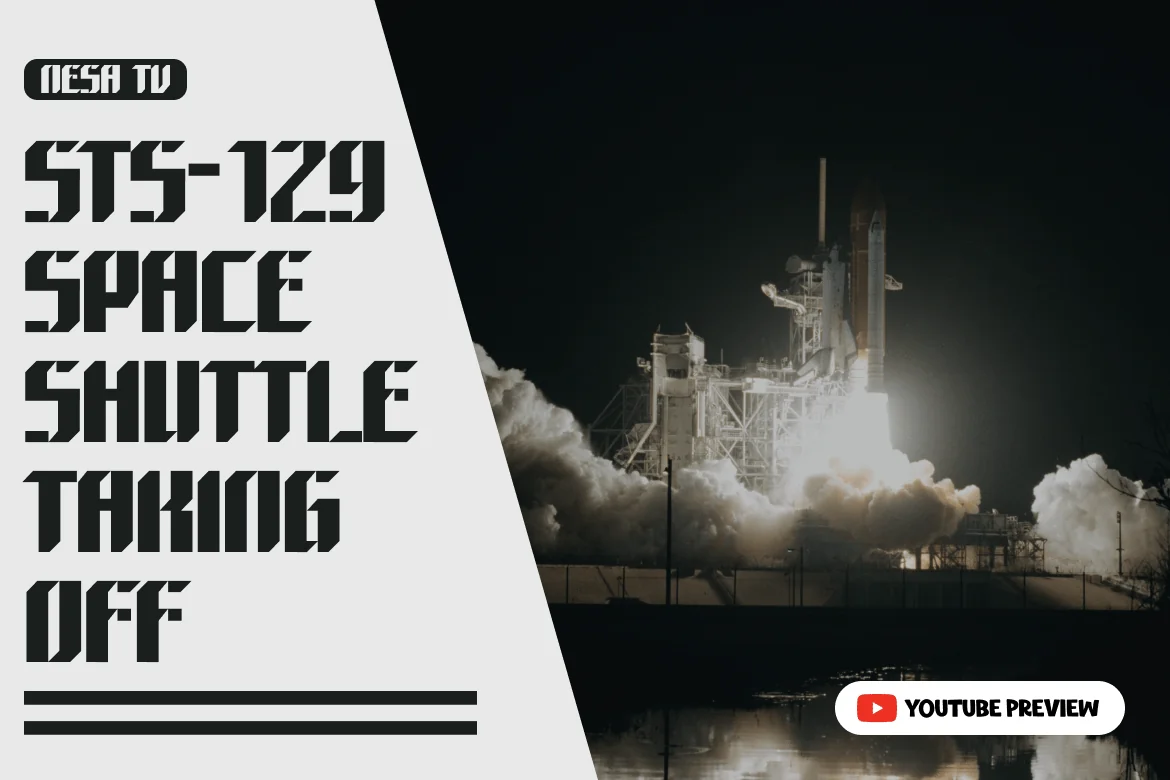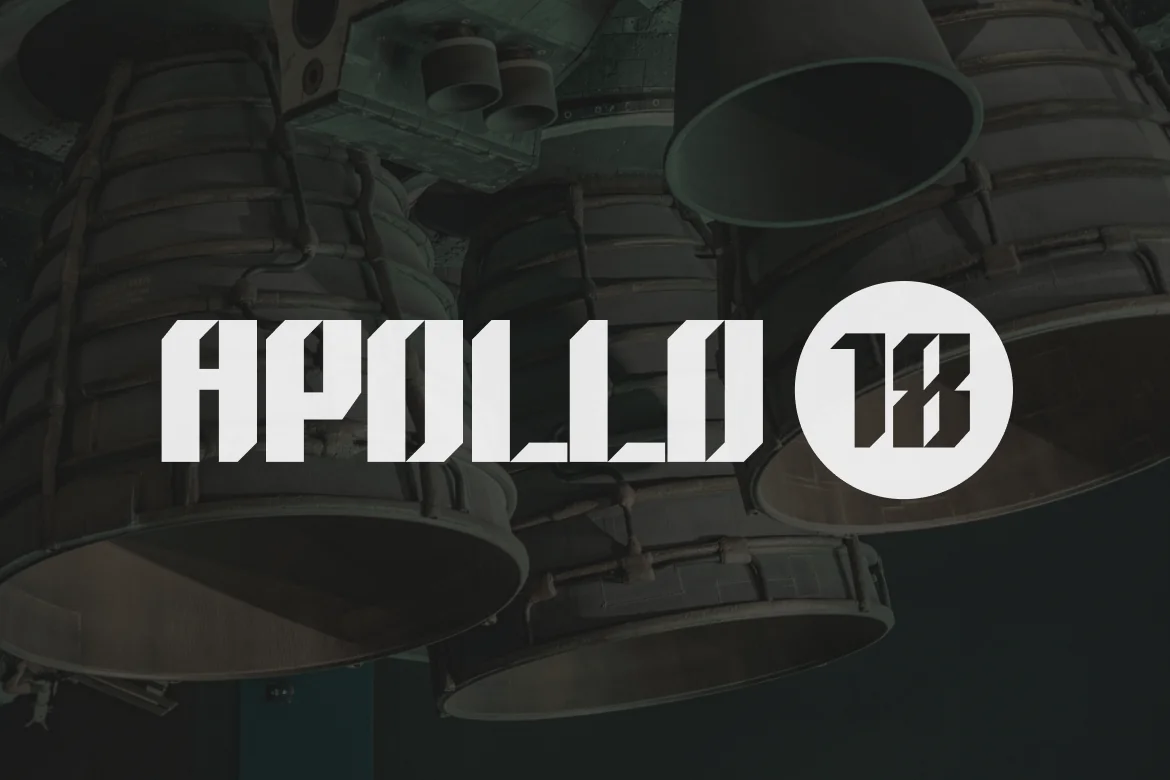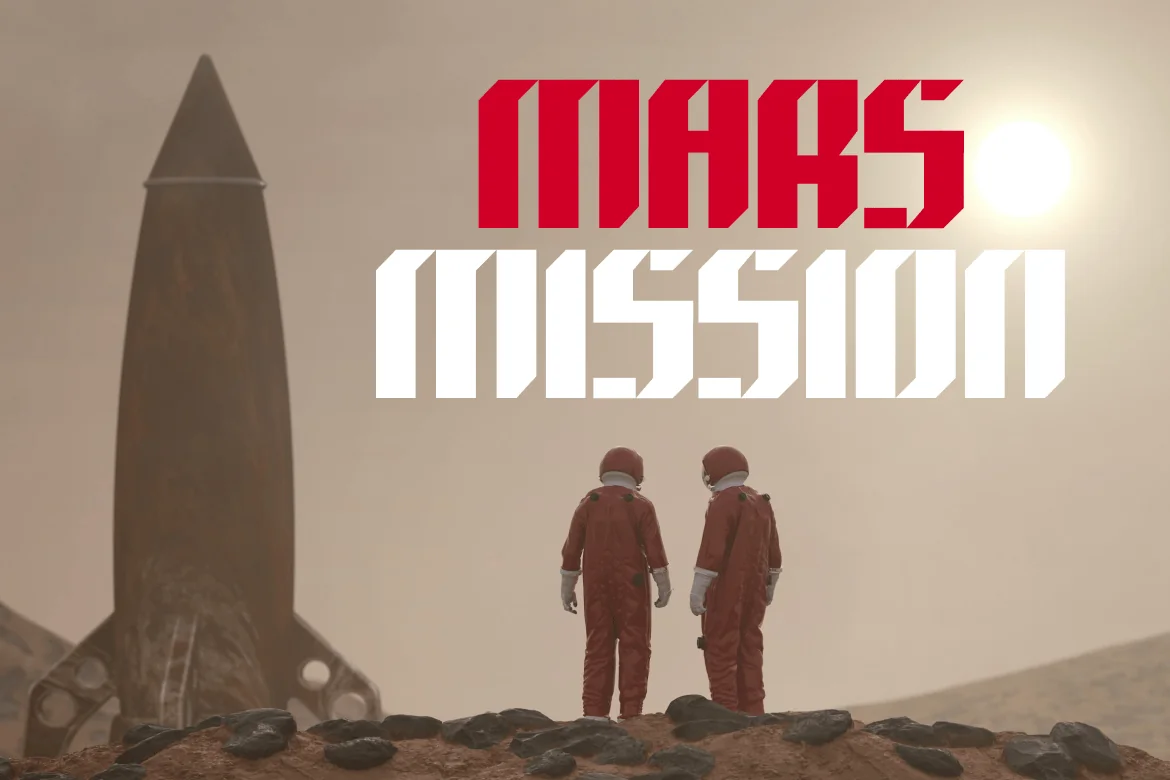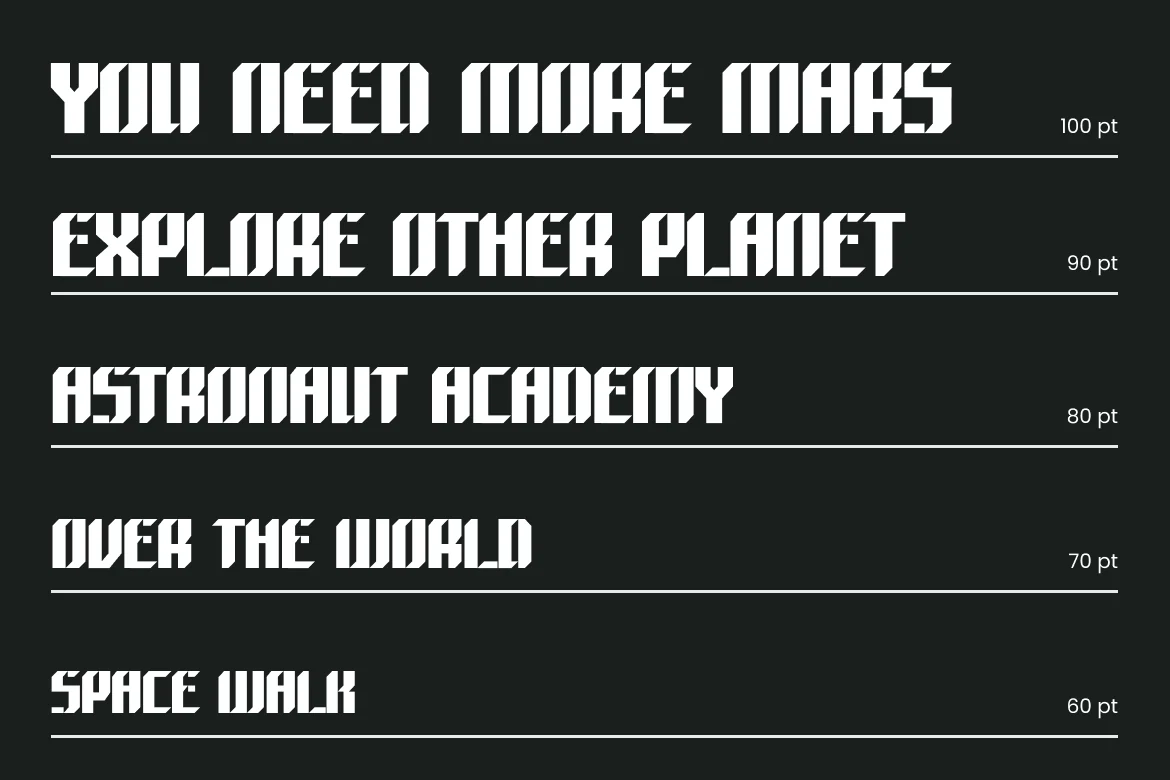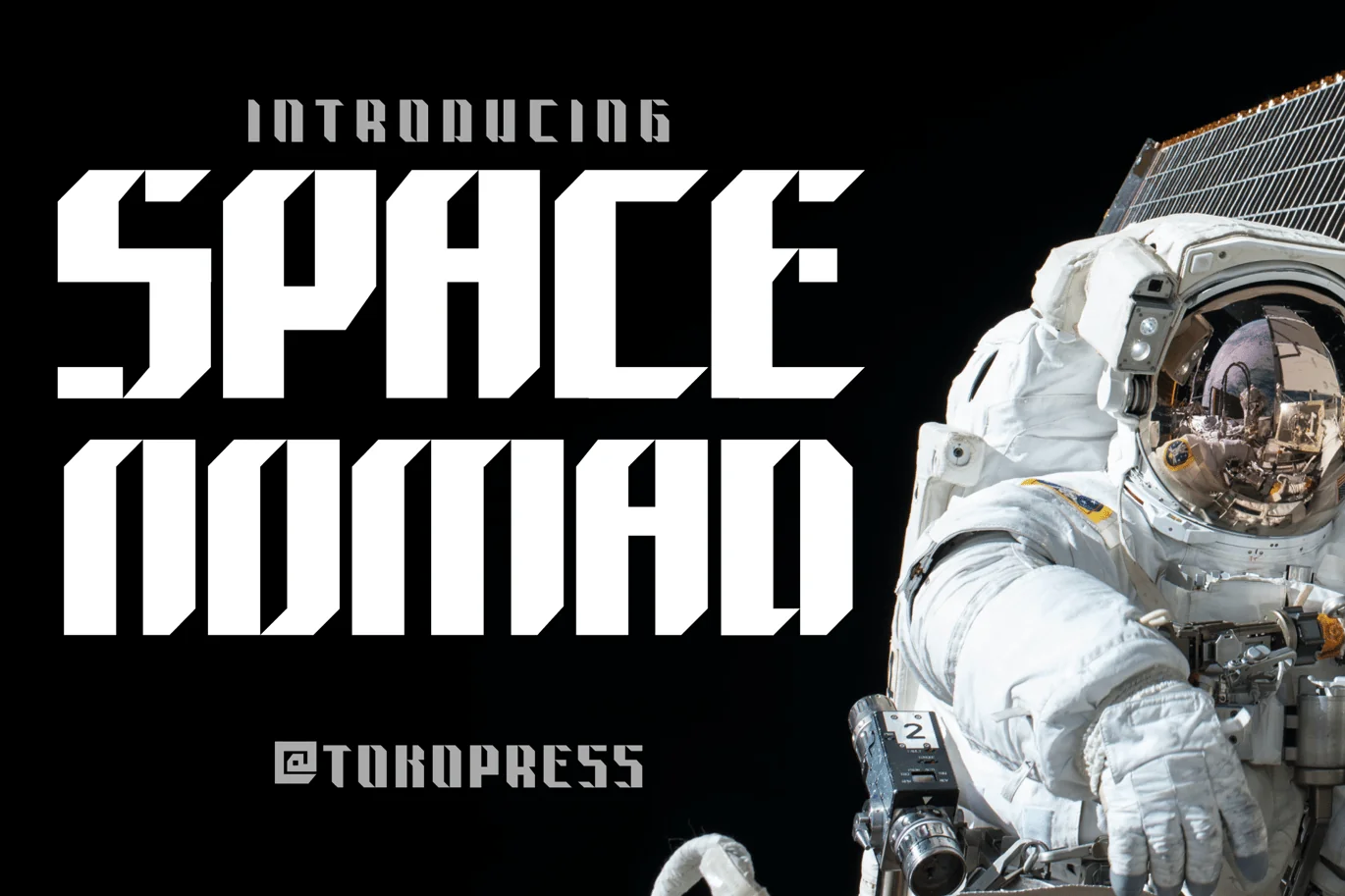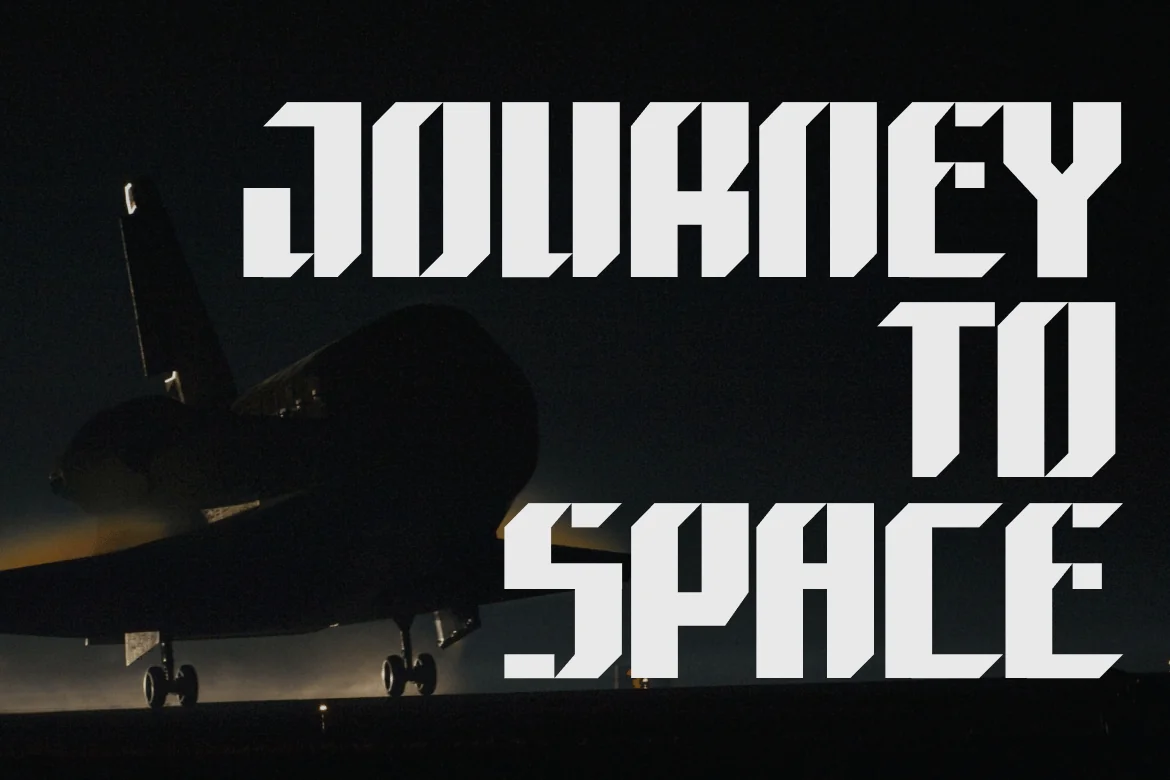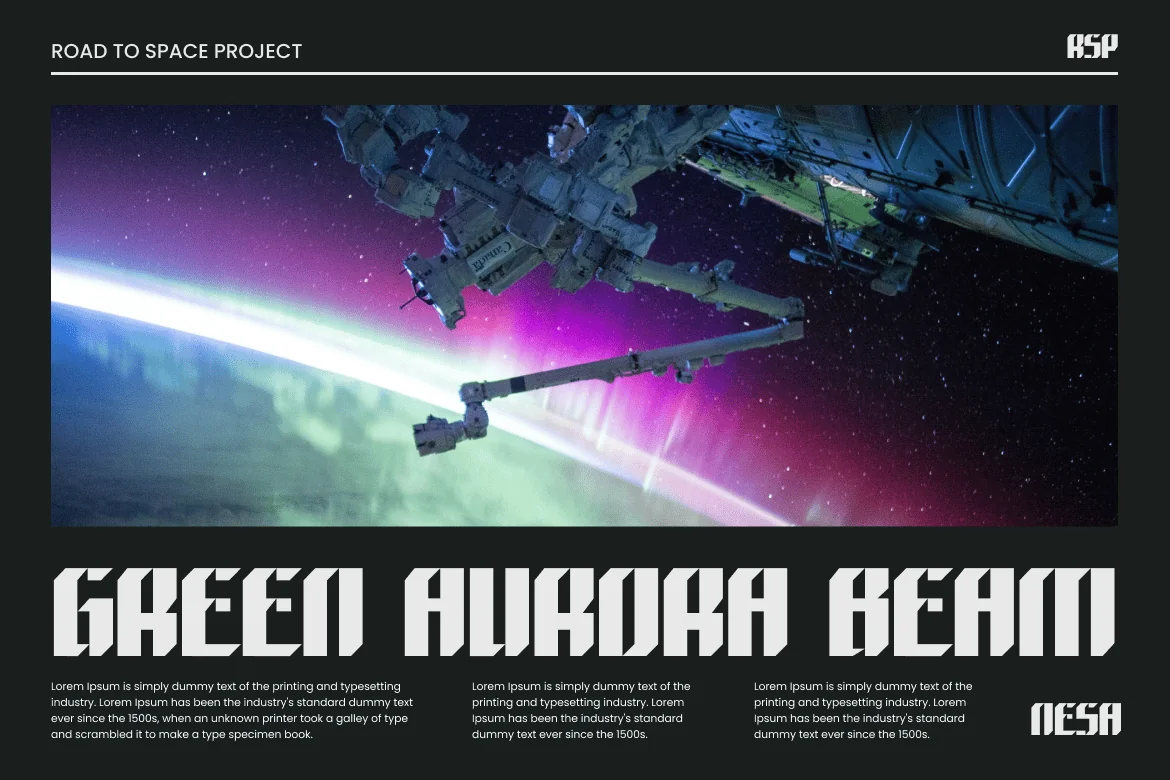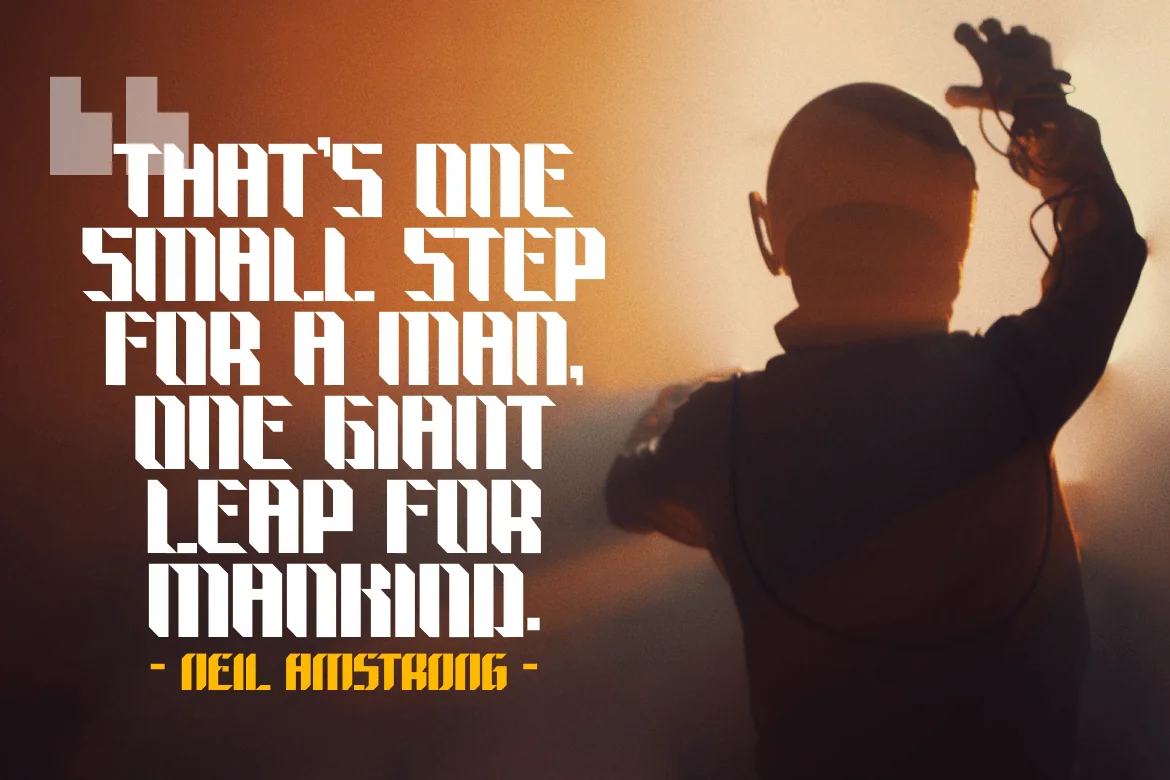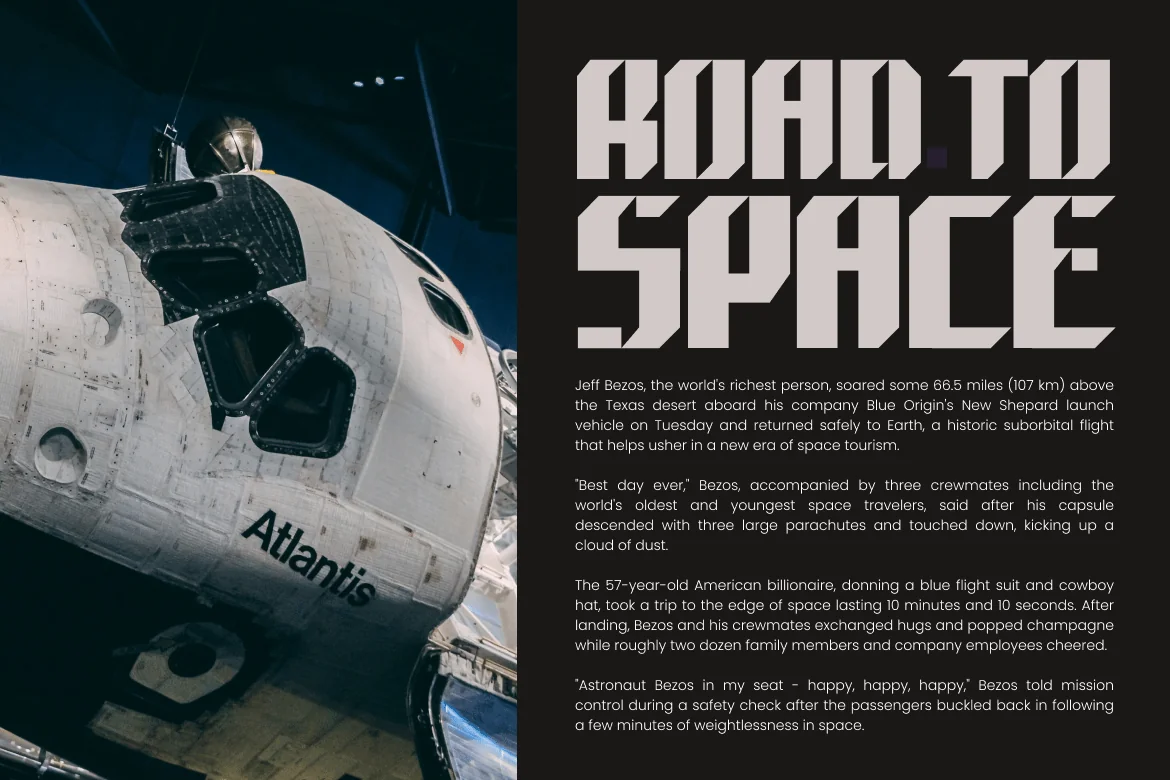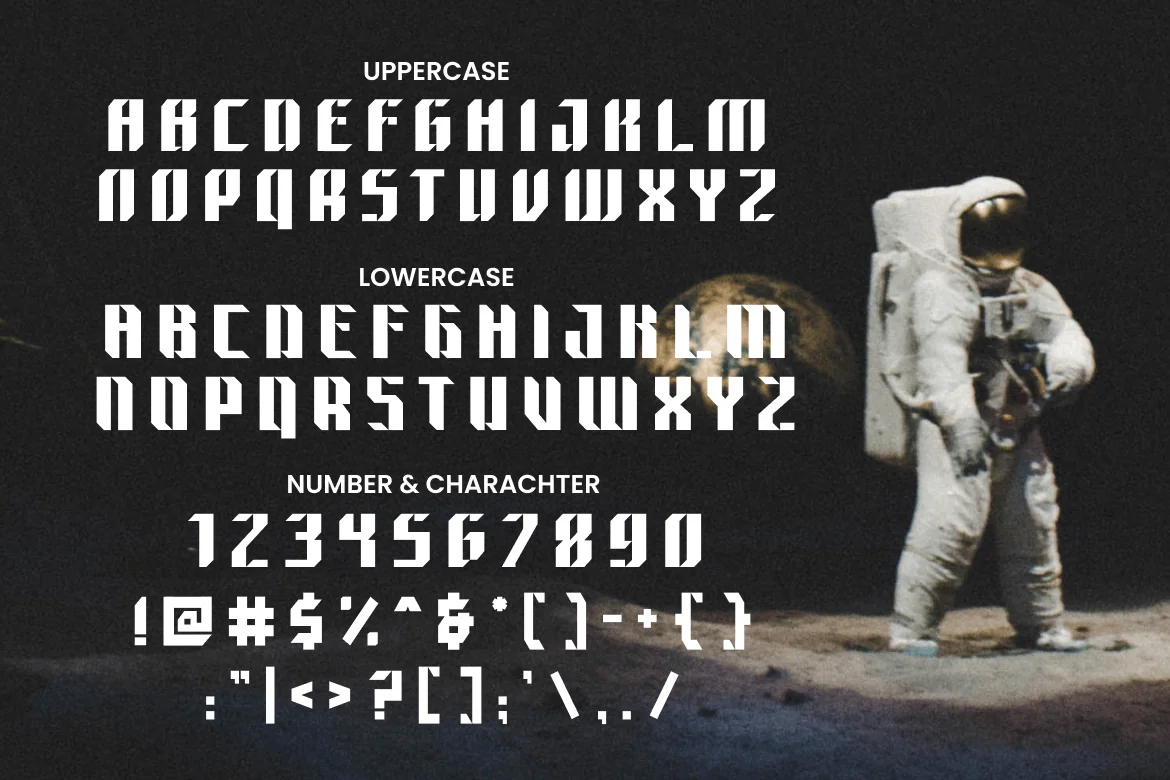
Space Nomad – techno sporty font
Space Nomad – futuristic font
The world is not enough, we need to expand, and be a Space Nomad.
Suit perfectly for future and science segmented magazine, poster, movie title, music poster, youtube covers, youtube thumbnails, social media page covers and so on…